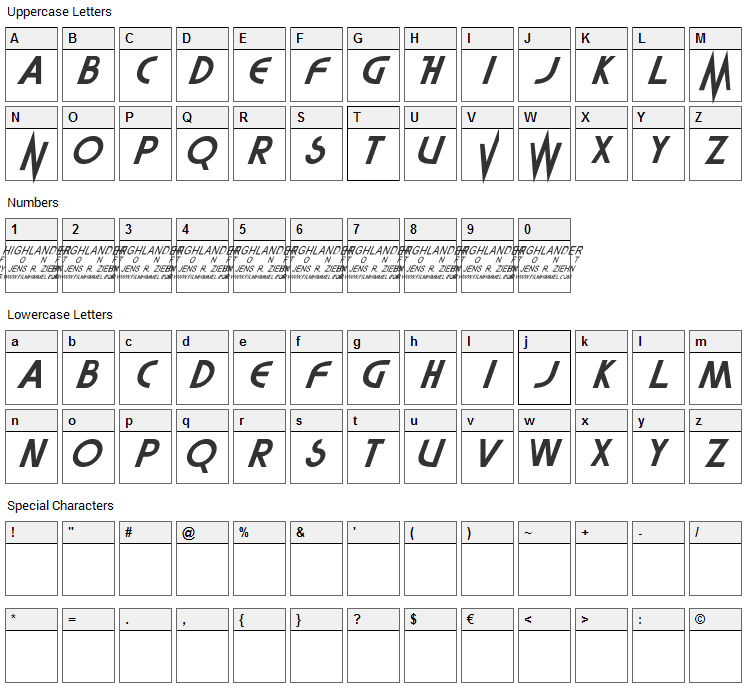
Highlander Movie Font
Jens Ziehn (Filmhimmel, aka Jay R. Zay or JRZ) designed fonts on the theme of films including Highlander. Filmhimmel closed its web doors in 2007. The website of Jens R. Ziehn seems to not exist anymore either.
Highlander Movie font contains 52 defined characters and 52 unique glyphs.